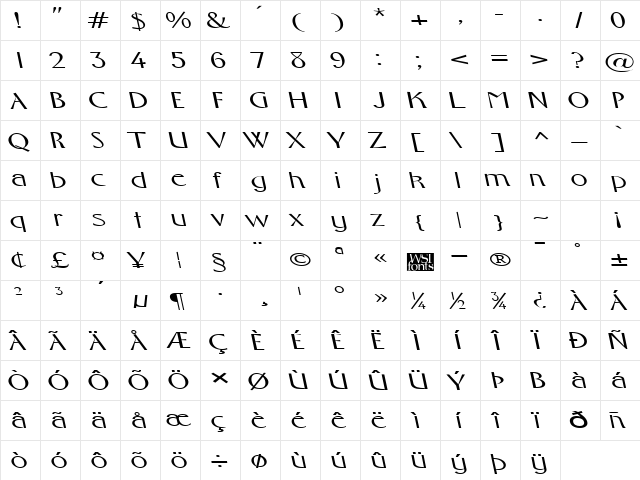
FosterExpandedBS Regular
Design Context for FosterExpandedBS Typeface
FosterExpandedBS offers clean, dependable letterforms without strong stylistic allegiance, making it a practical choice for designers who need flexibility.
Pro Tip: Pair FosterExpandedBS with a font of contrasting weight or personality to build a more expressive typographic hierarchy.